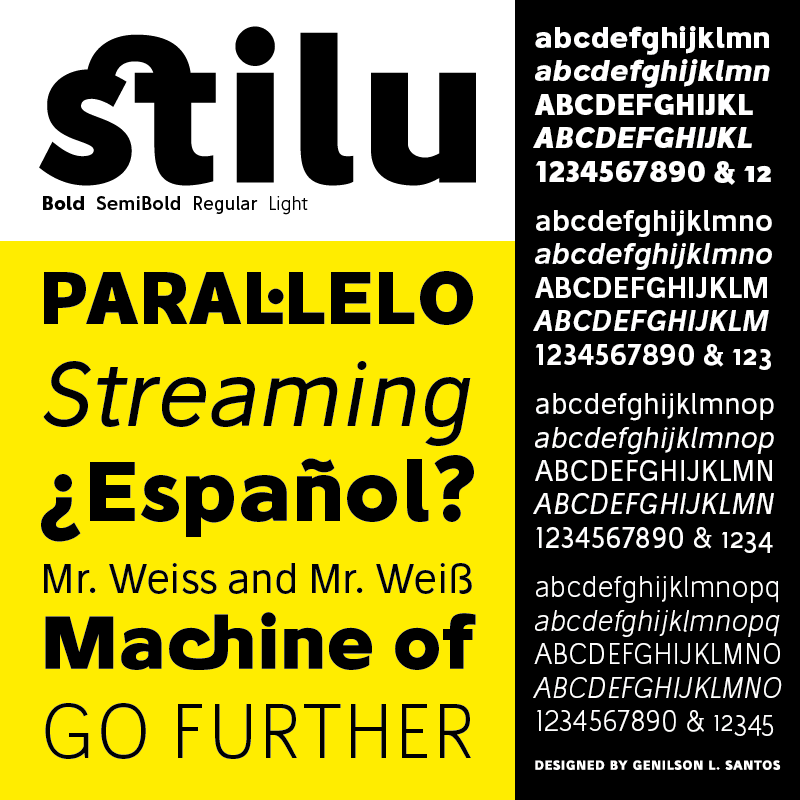
Font name: | Stilu |
Author: | Genilson L. Santos |
Note by Genilson L. Santos | |
STILU is a family of sans serif typefaces. In this package are four weights avalaible: Light, Regular, SemiBold and Bold plus obliques. OpenType features: ligatures, small caps figures, old style figures, proportional lining and tabular lining figures. This font is free for personal and commercial uses. Donations are highly appreciated. Have a question?: genilson.blacktype@gmail.com https://www.behance.net/gallery/29918575/Stilu-Open-Source-Typeface |